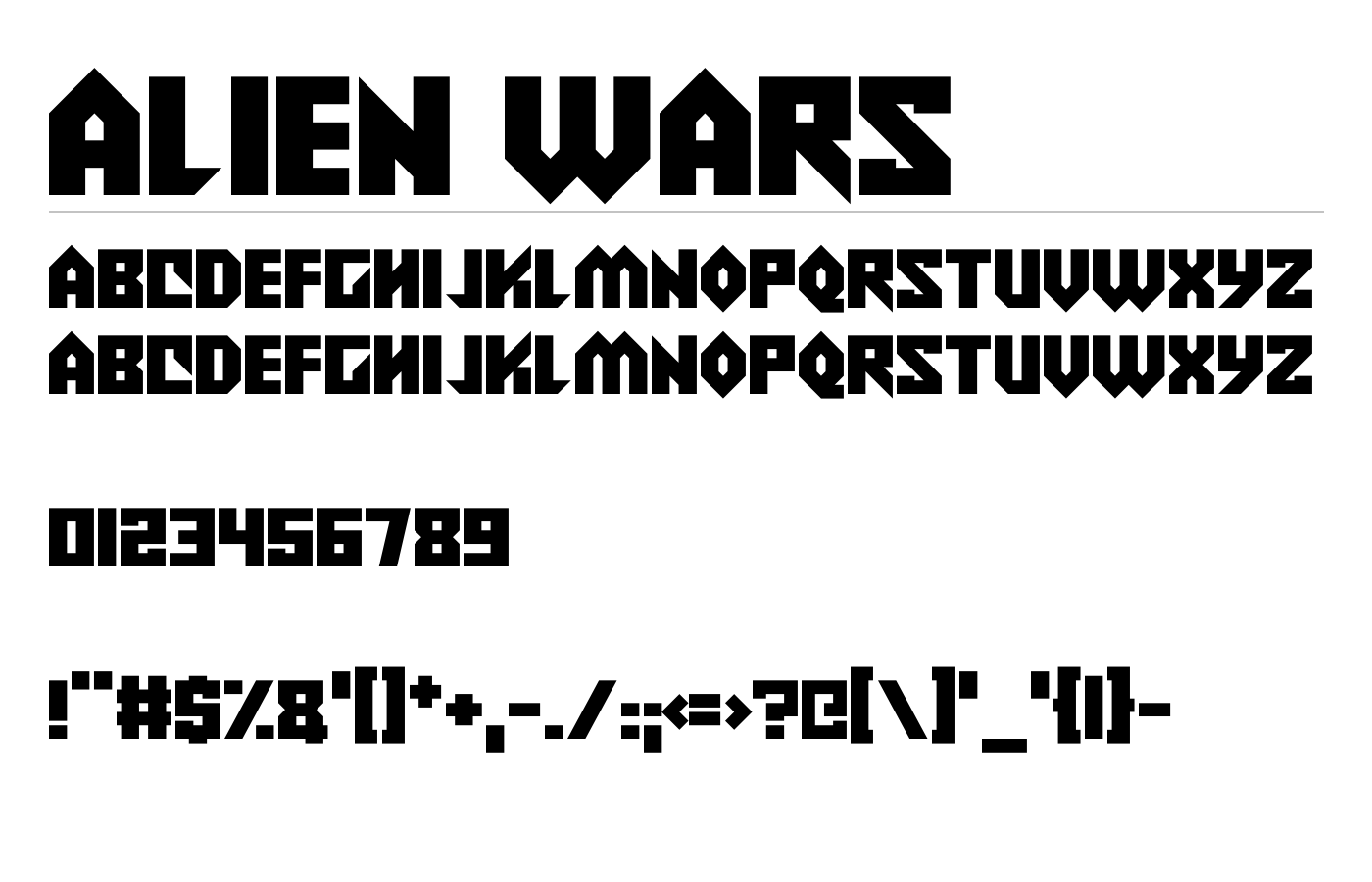
Alien Wars is a bold, geometric sans serif typeface with strong, angular lines that give it a futuristic and sci-fi feel. Its thick, blocky letterforms combined with unique, sharp details make it ideal for attention-grabbing headlines, logos, and posters in gaming or technology-related designs. This font’s powerful personality and modern edge communicate energy and innovation, perfect for brands looking to stand out with a dynamic, space-age aesthetic.
Alien Wars Font
About Alien Wars Font